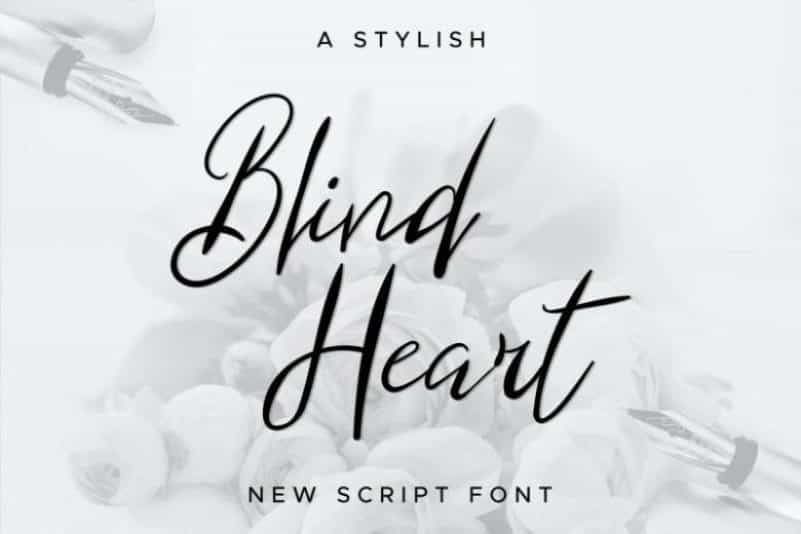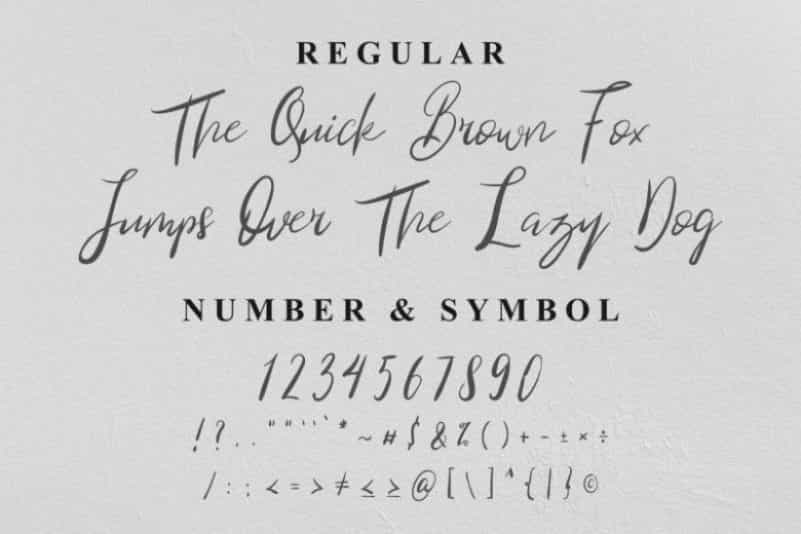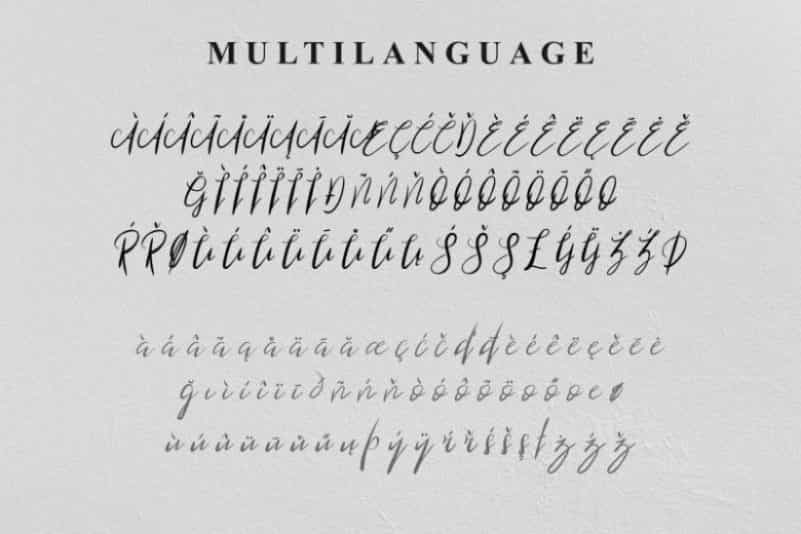
Blind Heart is a recent modern script handwriting calligraphy style font. It contains new, graceful, organic, and trendy glyphs. Is the most prefer for any designs projects.